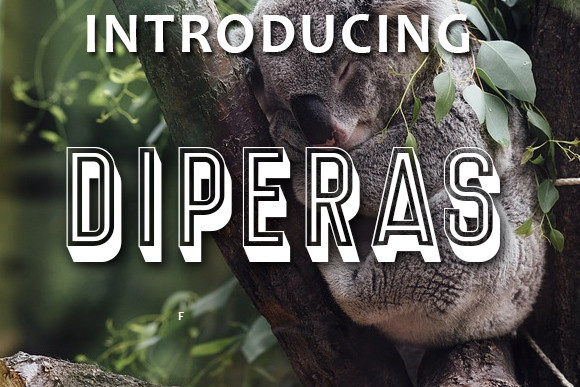
Welcome to the mesmerizing realm of Diperas, a captivating 3D display font that will beckon your designs into a new era of visual splendor. Crafted by the hands of Vladimirnikolic, Diperas is the quintessential font for vintage design, its every curve and contour echoing the timeless allure of bygone eras.
Diperas's enchanting presence will infuse your creations with a touch of nostalgia, evoking the golden age of design. Its three-dimensional form dances across your screen, lending depth and dimension to your typography. Its meticulously crafted characters possess a captivating charm, each stroke and serif imbued with a story waiting to be told.
Whether you're conjuring enchanting invitations, crafting eye-catching posters, or designing captivating social media campaigns, Diperas will guide your every step. Its versatility knows no bounds, allowing you to weave your creative magic across a myriad of platforms.
Imagine the awe-inspiring impact Diperas will have on your vintage-inspired designs. Its carefully balanced proportions and elegant curves will elevate your creations to new heights of sophistication. With Diperas by your side, you'll have the power to create designs that transcend time, capturing hearts and igniting imaginations.
Indulge in the limitless possibilities that Diperas holds. Let its vintage spirit inspire your designs, taking your creations to captivating new realms. Embark on a journey of self-expression and visual enchantment with Diperas, the font that will transform your designs into timeless masterpieces.
Diperas: Rediscover the Vintage Charm in Every Font